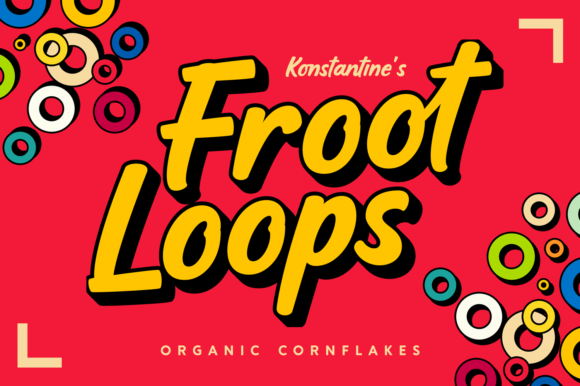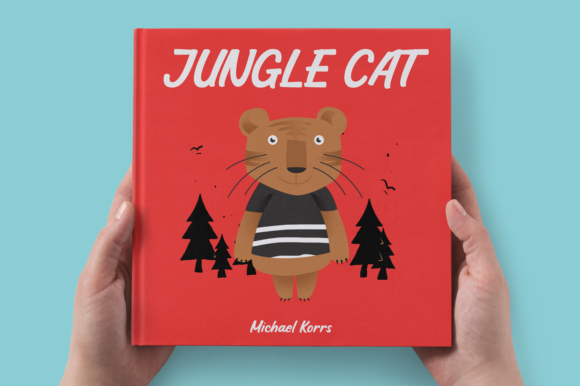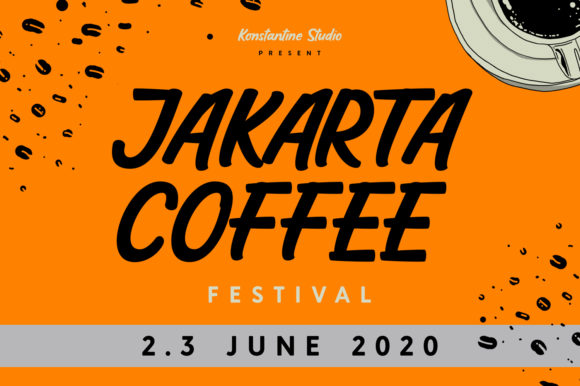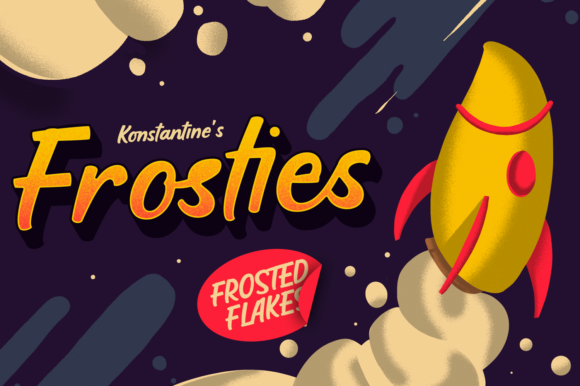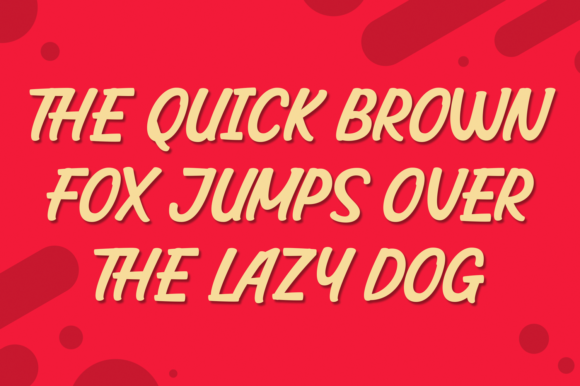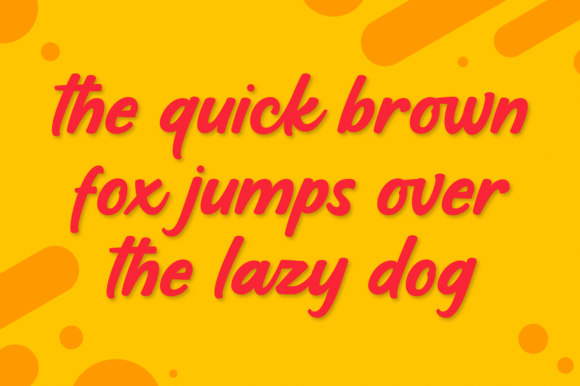
Introduction to Hoffers Font
Hoffers is a gorgeous and bold handwritten font, crafted to give your headlines and logotype projects a stylish touch.
This font reads as strong, confident, and dynamic and can add tons of nostalgic character to your designs .